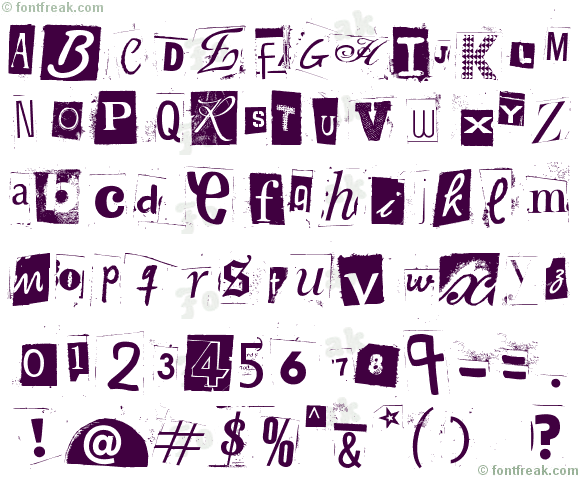
Woodcutter Anonymous part 2
Woodcutter Anonymous part 2 is a unique display typeface created by woodcutter Manero, characterized by its bold and eclectic design. This font falls within the decorative category, featuring a playful and rugged aesthetic that captures the essence of handcrafted typography. The strokes exhibit a varying weight, creating a dynamic contrast that enhances its visual appeal. The spacing is intentionally irregular, which adds to the font's organic feel, making it suitable for projects that aim to convey a sense of authenticity and creativity.
This typeface is particularly well-suited for a variety of use cases. It can elevate wedding invitations with a rustic charm, making them memorable. For movie posters, Woodcutter Anonymous part 2 brings an edgy vibe that can attract attention and intrigue. Restaurants looking to create unique menus will find this font ideal for conveying a casual yet artistic atmosphere. Additionally, it can be effectively used in branding projects, especially for artisanal or handmade products, where the font's character can reinforce the brand's identity.
The target audience for this font includes graphic designers, small business owners, and content creators who seek to make a bold statement with their written materials. Whether for digital or print, this typeface offers versatility and uniqueness that can enhance any project.